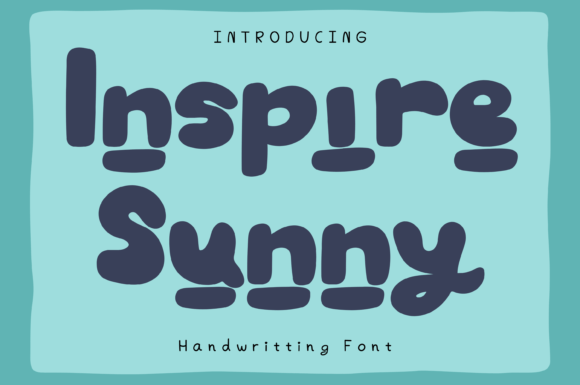
Introducing Inspire Sunny Font, the whimsical and bold display font that will add a touch of playful charm to your creative projects! Crafted with the utmost care by the talented AchiArt, this font is designed to captivate and inspire.
Unleash your imagination and let Inspire Sunny Font infuse your designs with a unique and eye-catching personality. Its bold and cheerful nature makes it the perfect choice for projects that demand attention and leave a lasting impression. From whimsical branding and cheerful logos to playful marketing materials and eye-catching social media posts, Inspire Sunny Font is the key to unlocking your creative potential.
Effortlessly elevate the visual appeal of your designs with Inspire Sunny Font. Its bold and distinct characters demand attention, while its smooth curves and playful details create an inviting and friendly atmosphere. Whether you're a seasoned designer seeking a touch of whimsy or a creative enthusiast looking to make a statement, Inspire Sunny Font is the perfect addition to your design toolkit.
Join the countless designers who have embraced the magic of Inspire Sunny Font and transformed their projects into captivating visual masterpieces. With its ability to effortlessly match an incredibly large set of projects, it's the ultimate choice for those seeking a font that's both versatile and unforgettable.